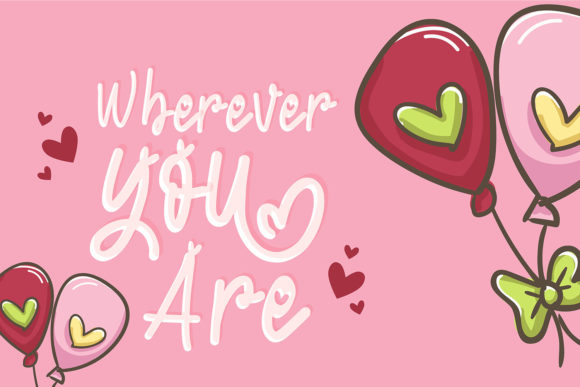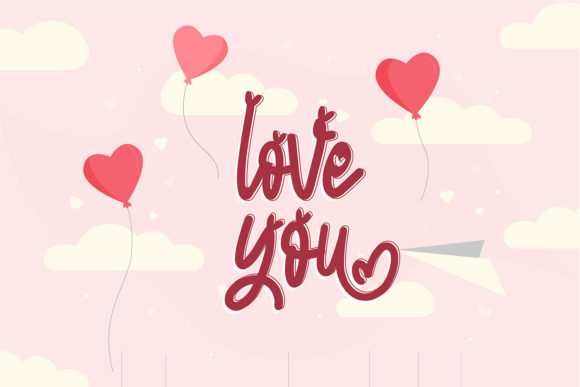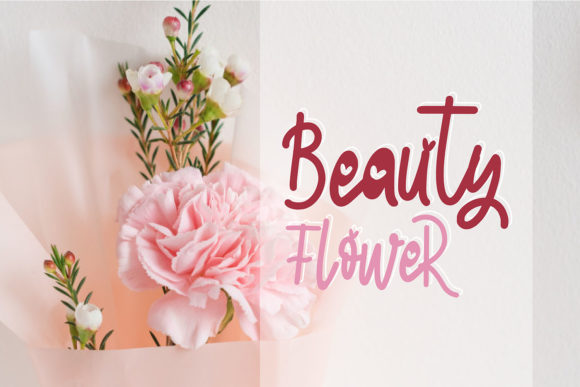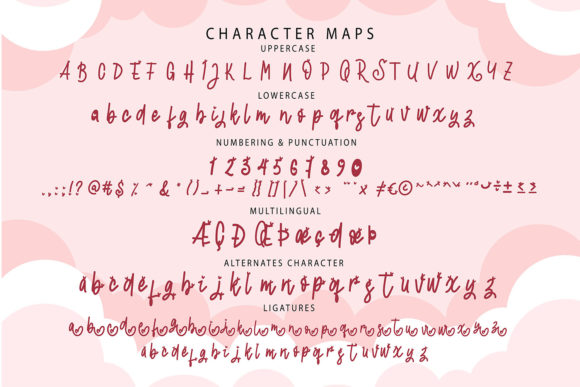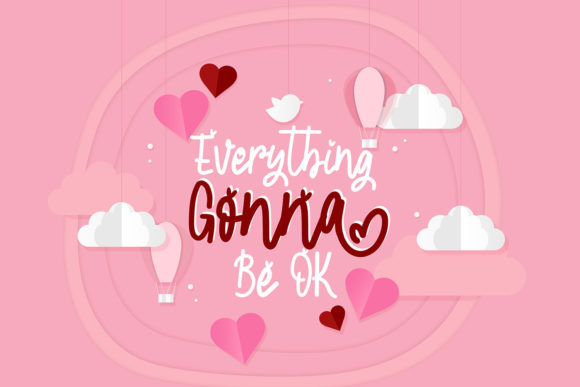
Lovely Font
About Lovely Font
Lovely is a fancy handwritten font. It brings cute swashes and alternates that will add a modern touch to your designs. It will look great in greeting cards, branding materials, business cards, quotes, posters, and more!